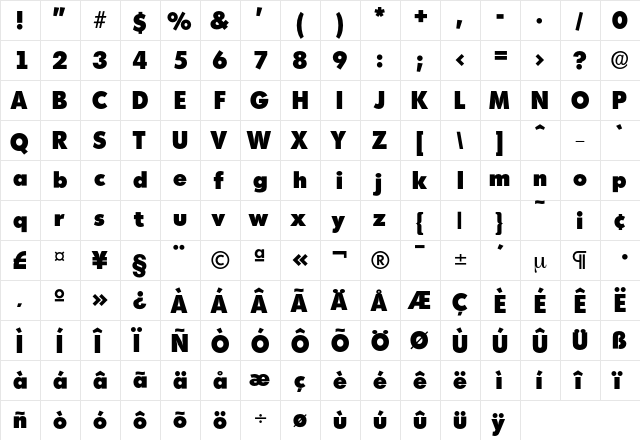
Montreal-Heavy Regular
Design Context for Montreal-Heavy Typeface
Montreal-Heavy takes a measured approach to typography — its balanced proportions and neutral character make it a reliable workhorse for both digital and print work.